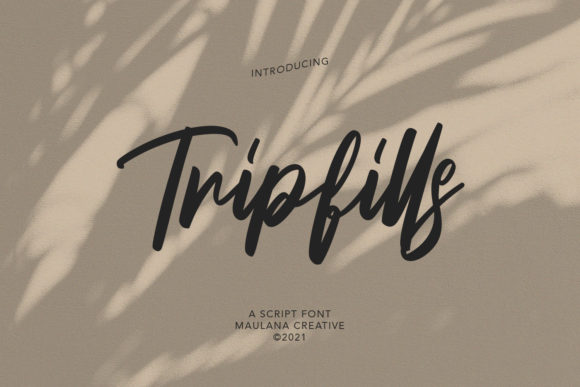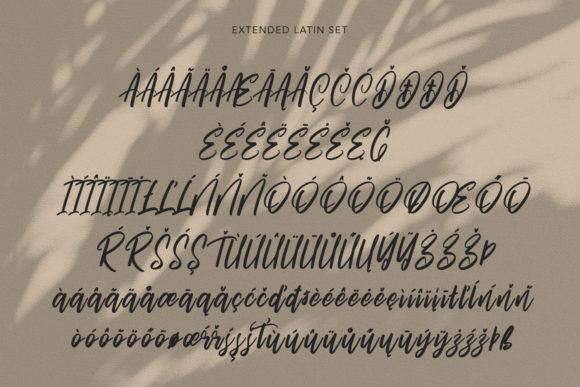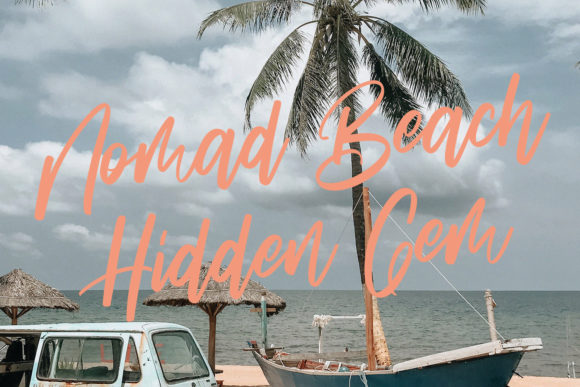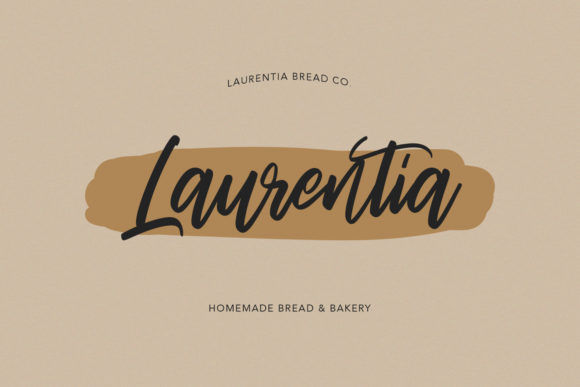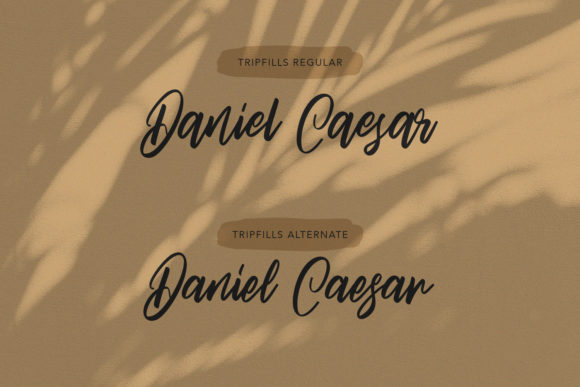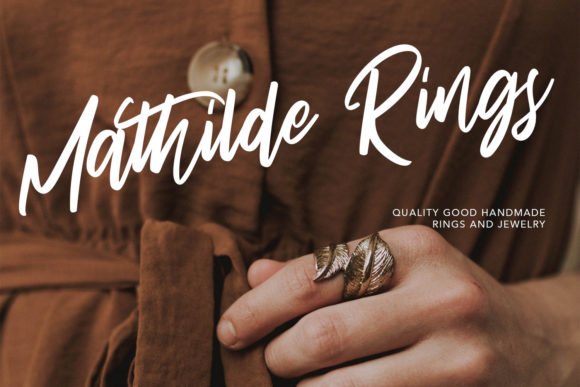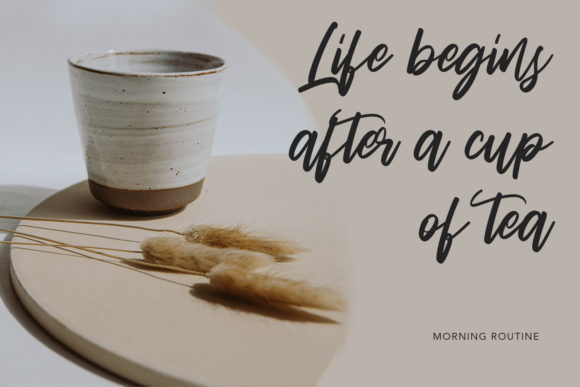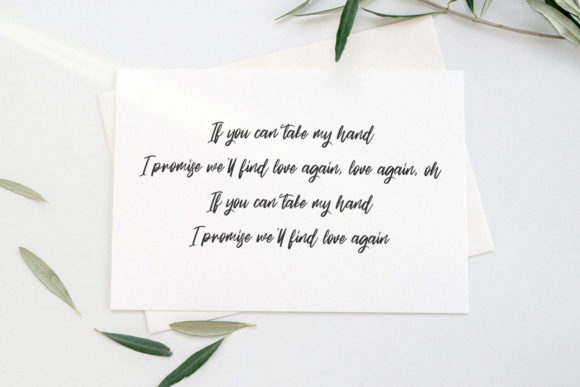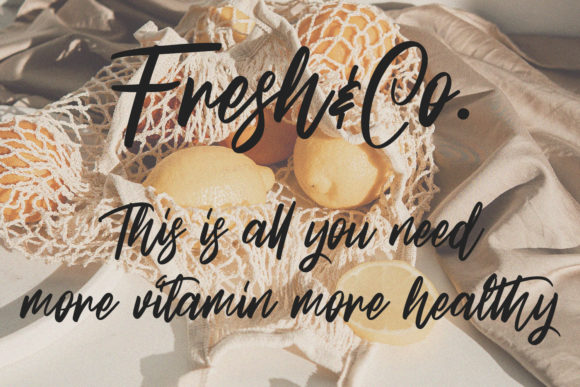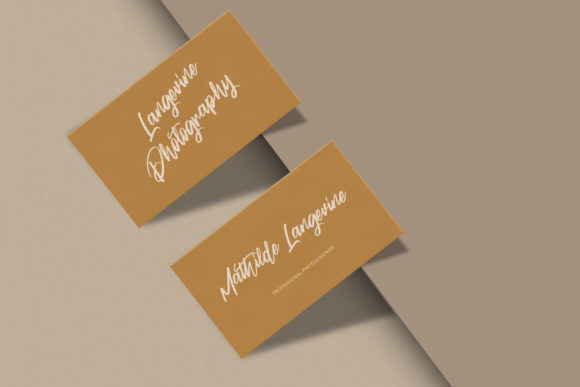
Tripfills Script Font
About Tripfills Script Font
Tripfills Script is a stylish and cursive script font. It has a casual, yet elegant touch. It can be used for various purposes such as logos, wedding invitations, headings, t-shirts, letterhead, signage, labels, news, posters, badges and so much more.